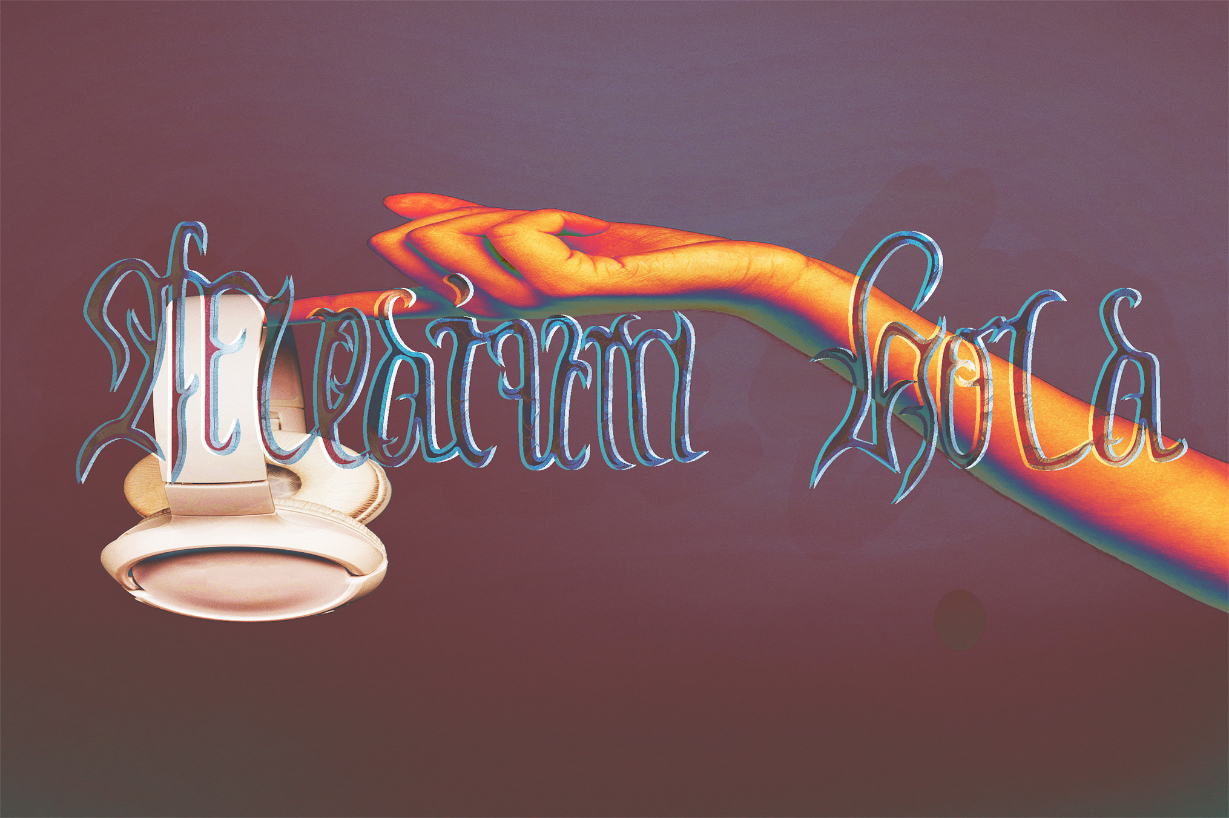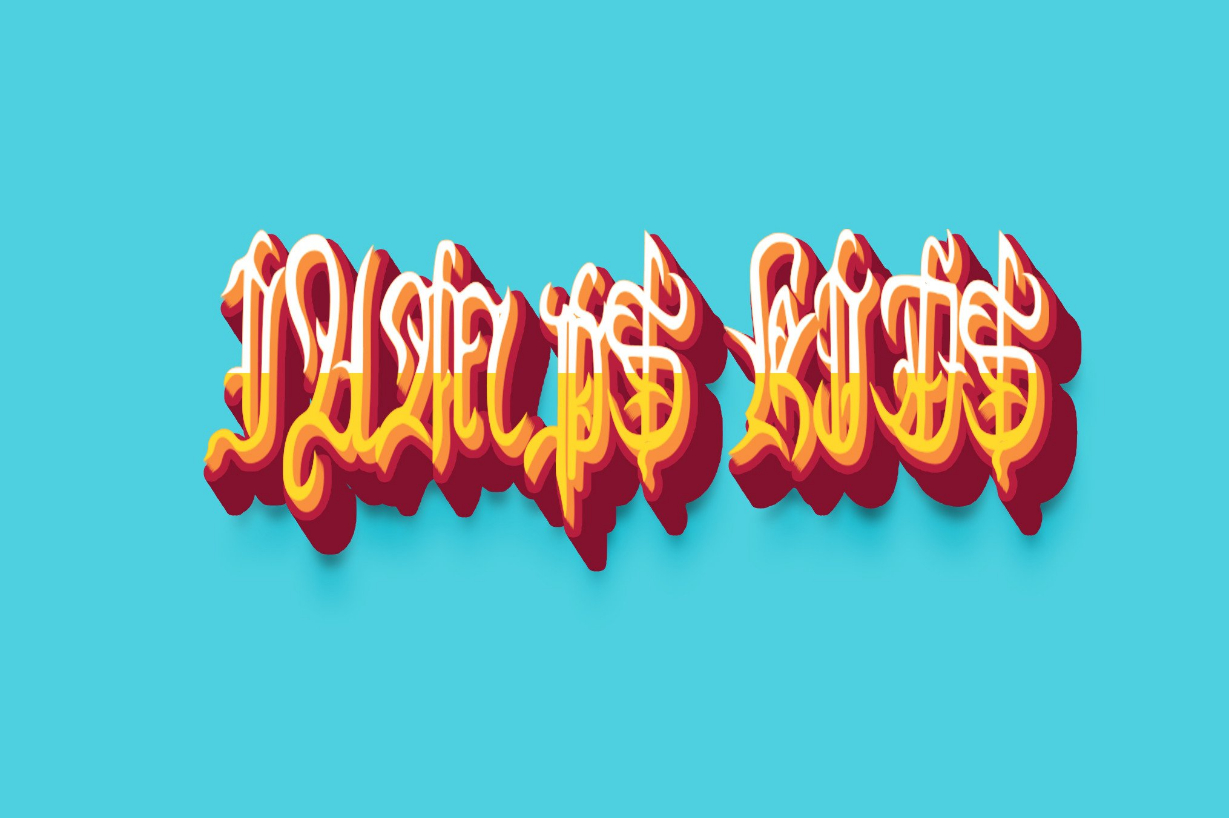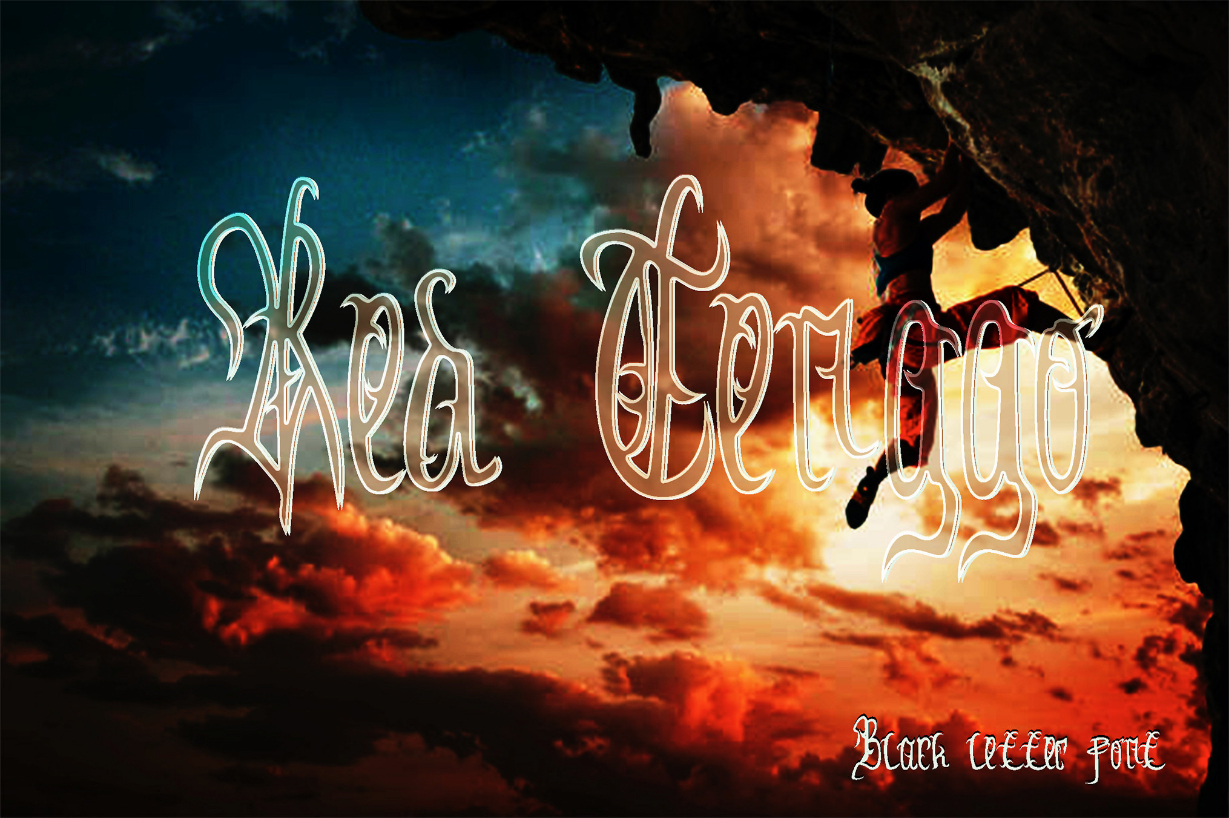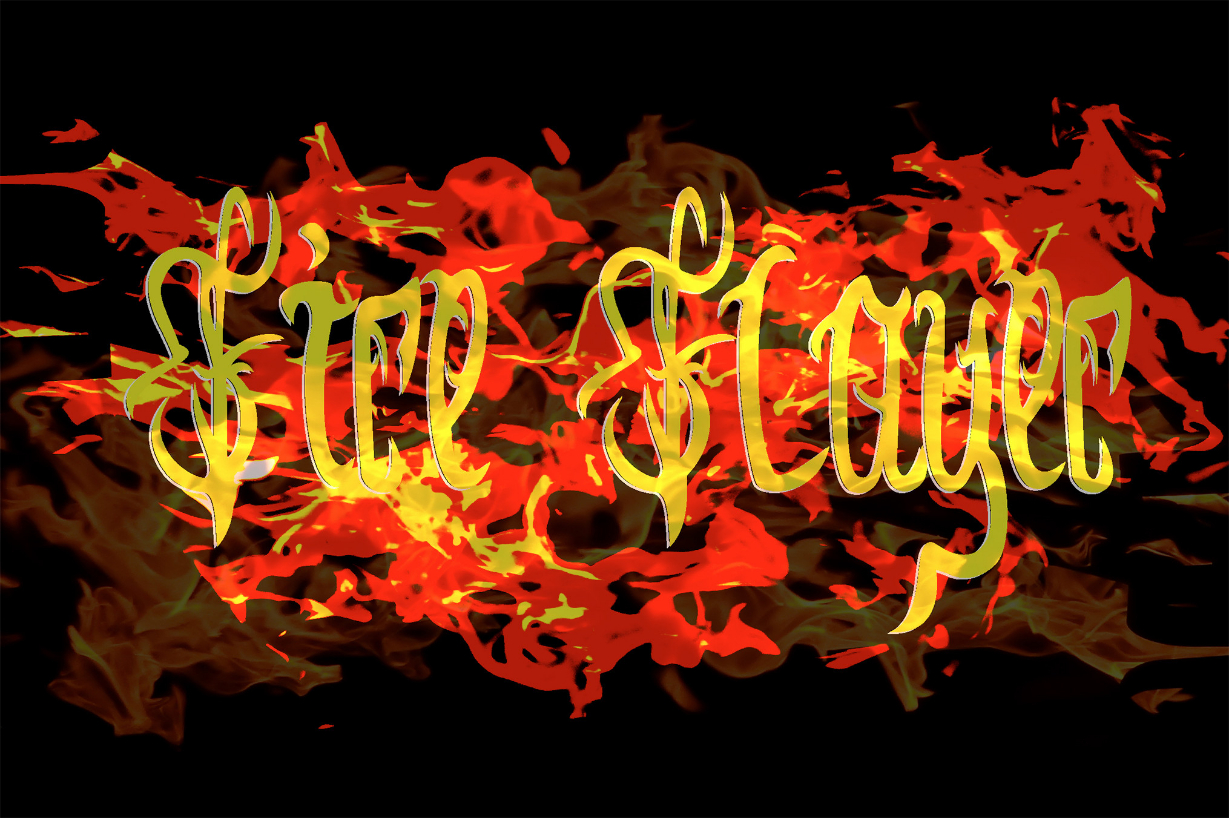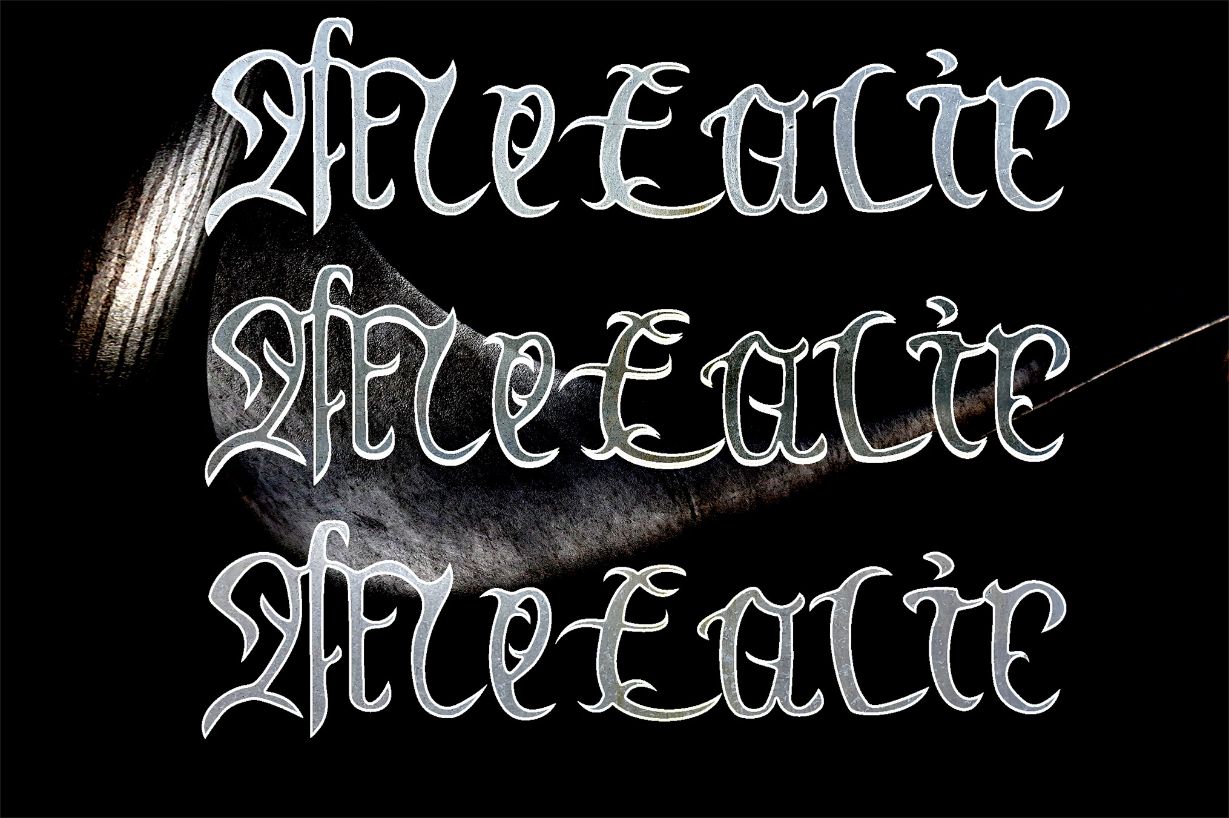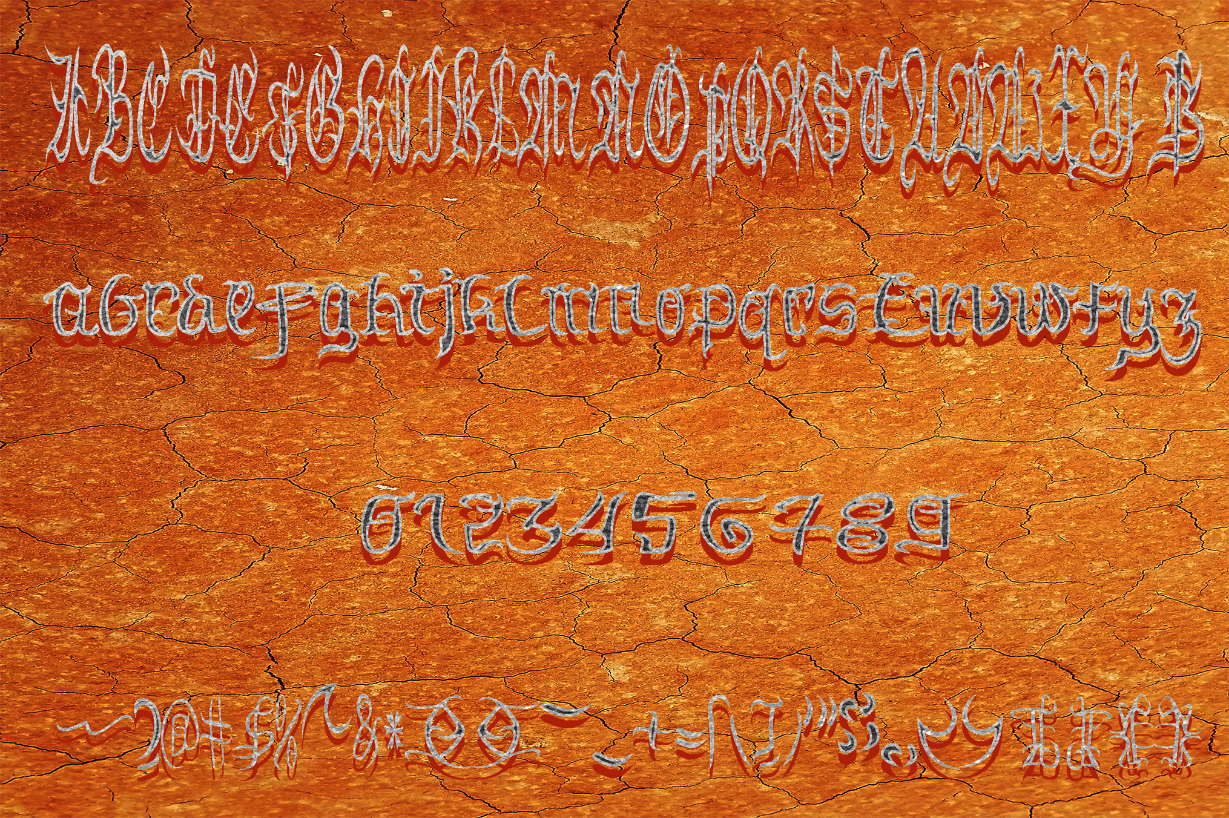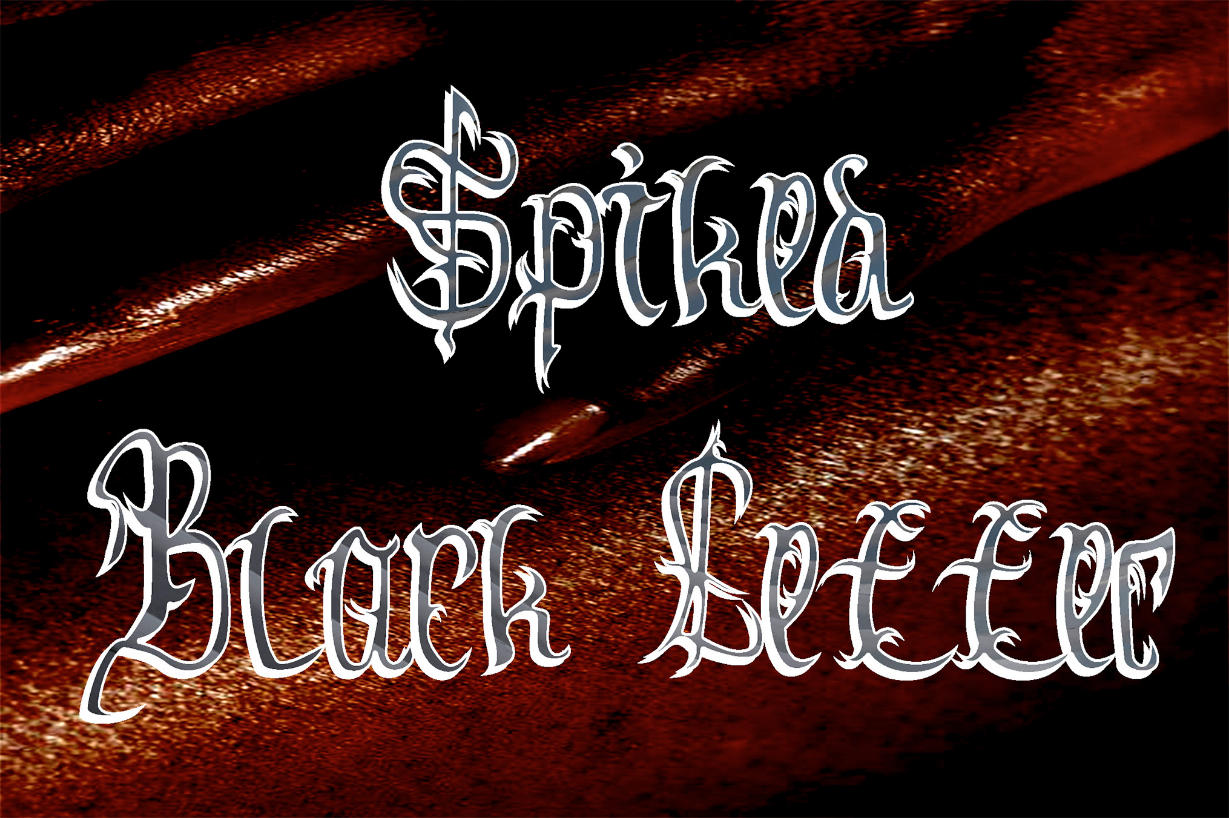
Spiked Font
About Spiked Font
Spiked is an elegant and stylish blackletter font. Its distinct and well balanced letters make this font a masterpiece. Fall in love with its incredibly versatile style and use it to create spectacular designs!